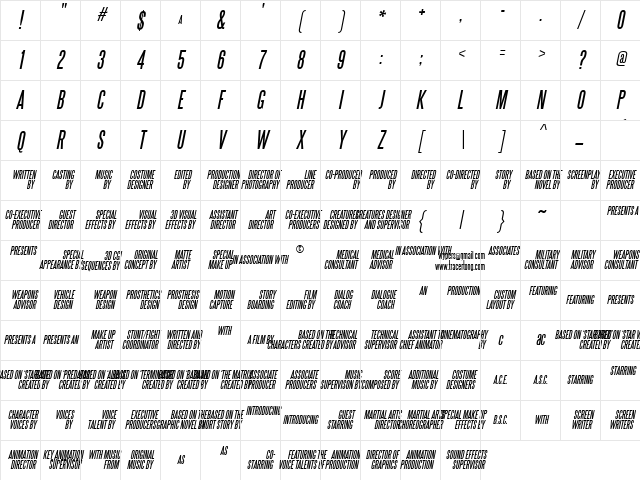
Steel Tongs Italic Free Font
Steel Tongs Italic
Foundry: TracerTong
Steel Tongs Family
Steel Tongs Italic
Design Context for Steel Tongs
Steel Tongs is a composed and adaptable typeface that performs quietly and consistently across a wide range of design contexts. The slanted form adds forward momentum and visual energy.
Pro Tip: Use Steel Tongs for emphasis, pull quotes, and subheadings where its slanted energy can add rhythm to the layout.